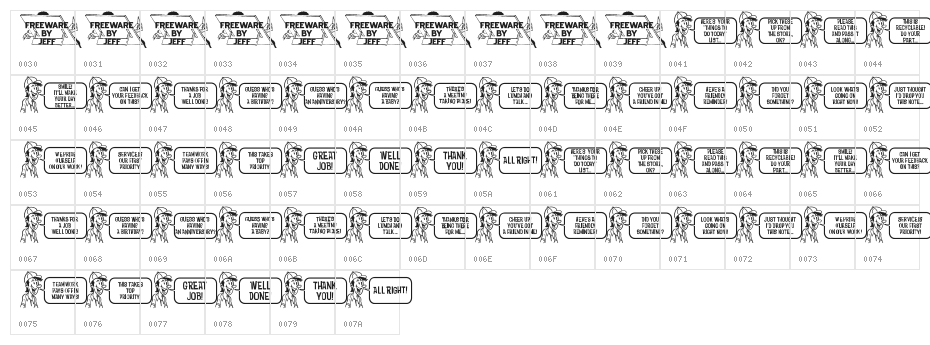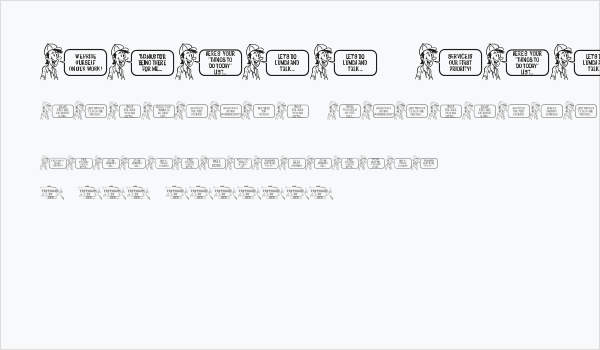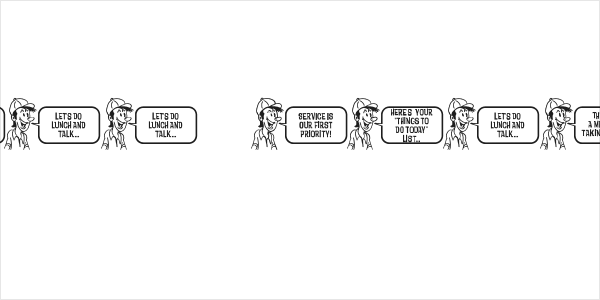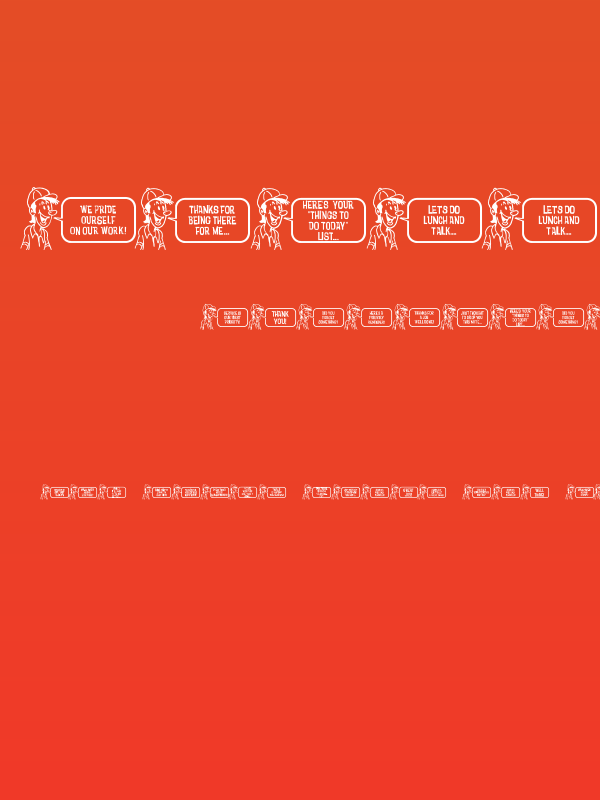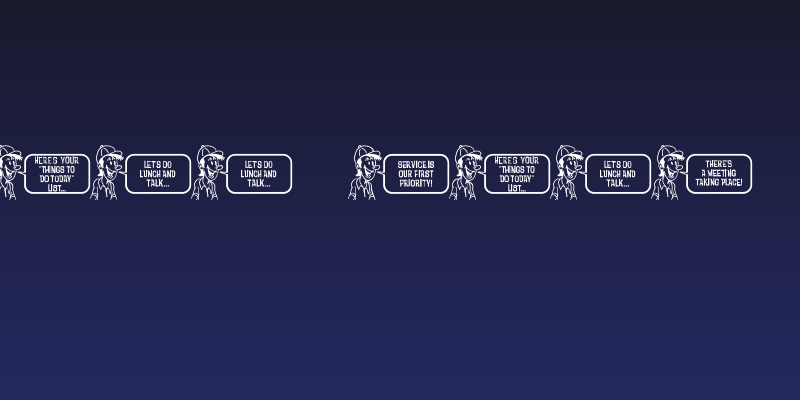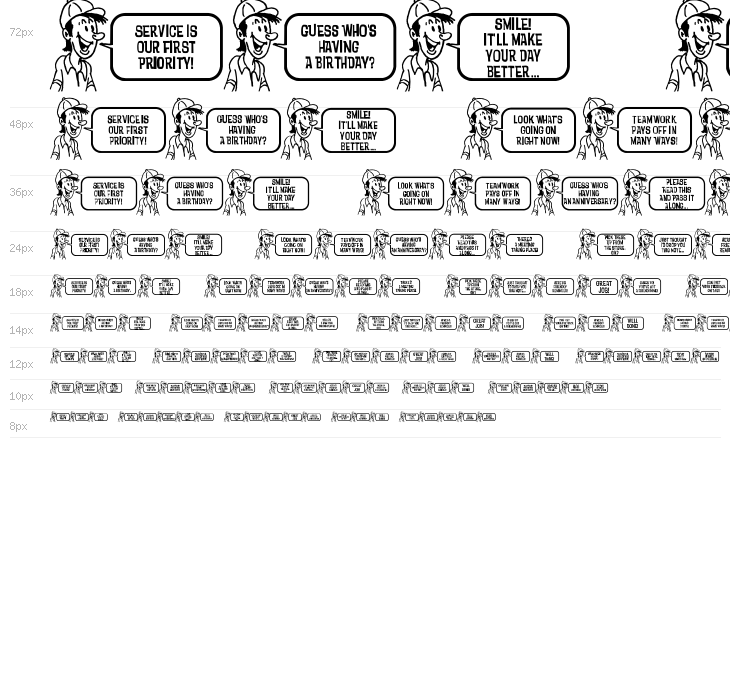
Small Talk JL Font
Small Talk JL Description
This is not a valid font. The image contains speech bubbles with phrases and a character illustration, rather than a standard font set. It appears to be a decorative or illustrative design rather than a functional typeface for text composition.
| Overall Style | Illustrative |
| Use Case | Comics, Illustrations |
| Proposed Projects | This design could be used for comic strips, graphic novels, or illustrative storytelling. |